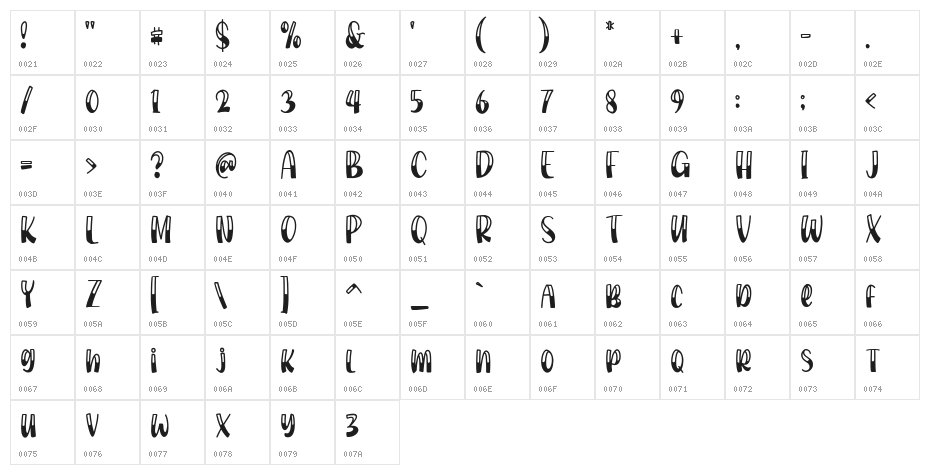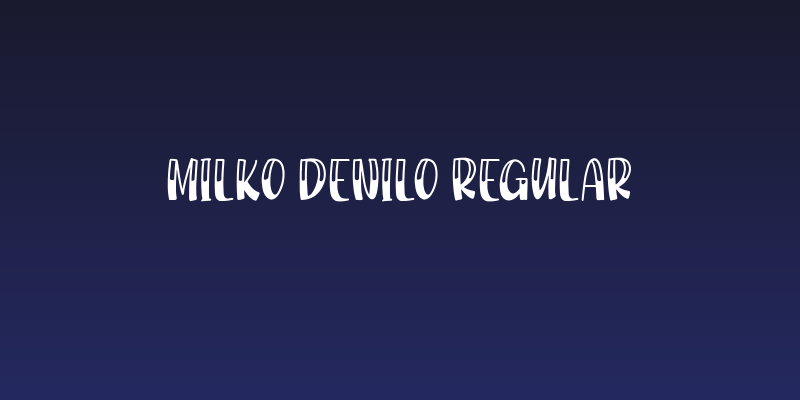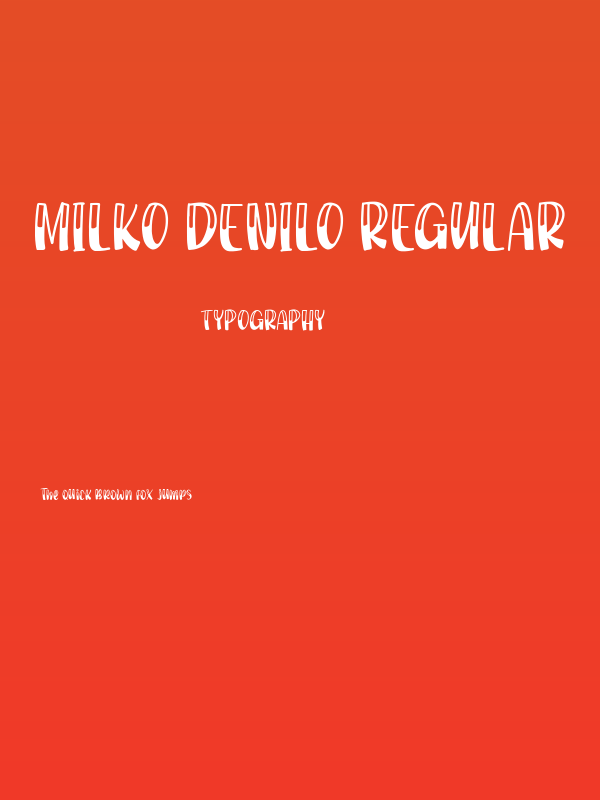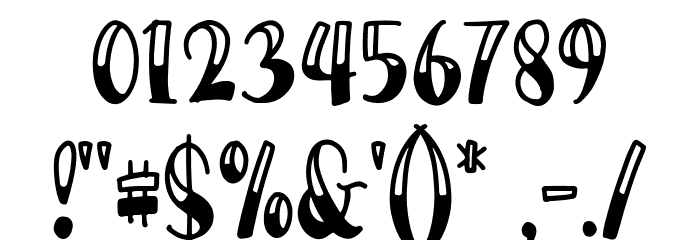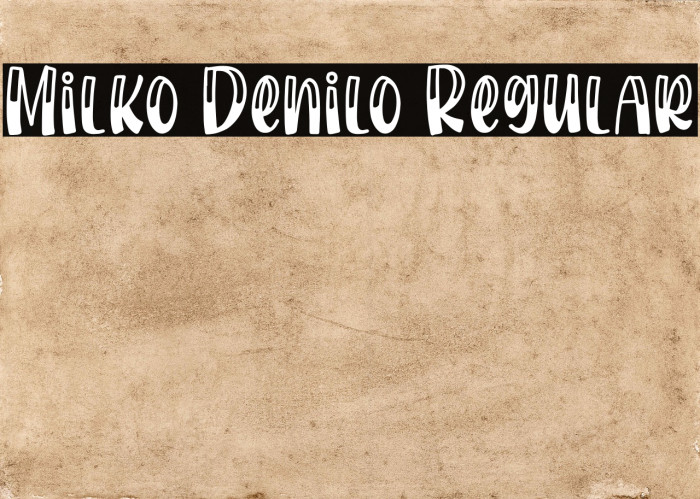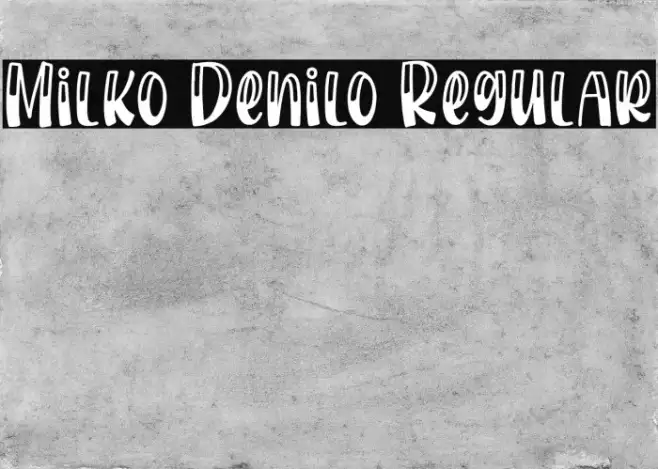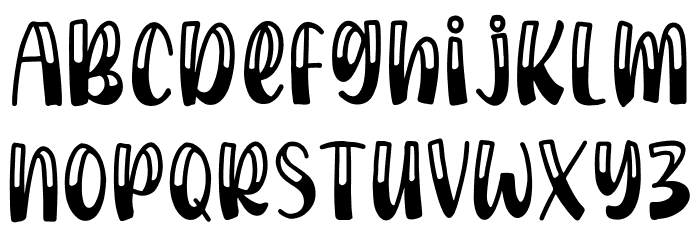
Milko Denilo Regular Font
Milko Denilo Regular Description
This font features a playful and bold style with a handwritten appearance. The letters are characterized by their thick strokes and slightly irregular shapes, giving them a whimsical and friendly feel. The uppercase and lowercase letters maintain a consistent style, with rounded edges and a slight slant, adding to the casual and approachable look. The numbers and special characters follow the same design principles, ensuring a cohesive appearance across all glyphs. This font's unique style makes it suitable for creative and informal projects.
| Proposed Projects | Ideal for children's books, greeting cards, playful branding, and social media graphics. |